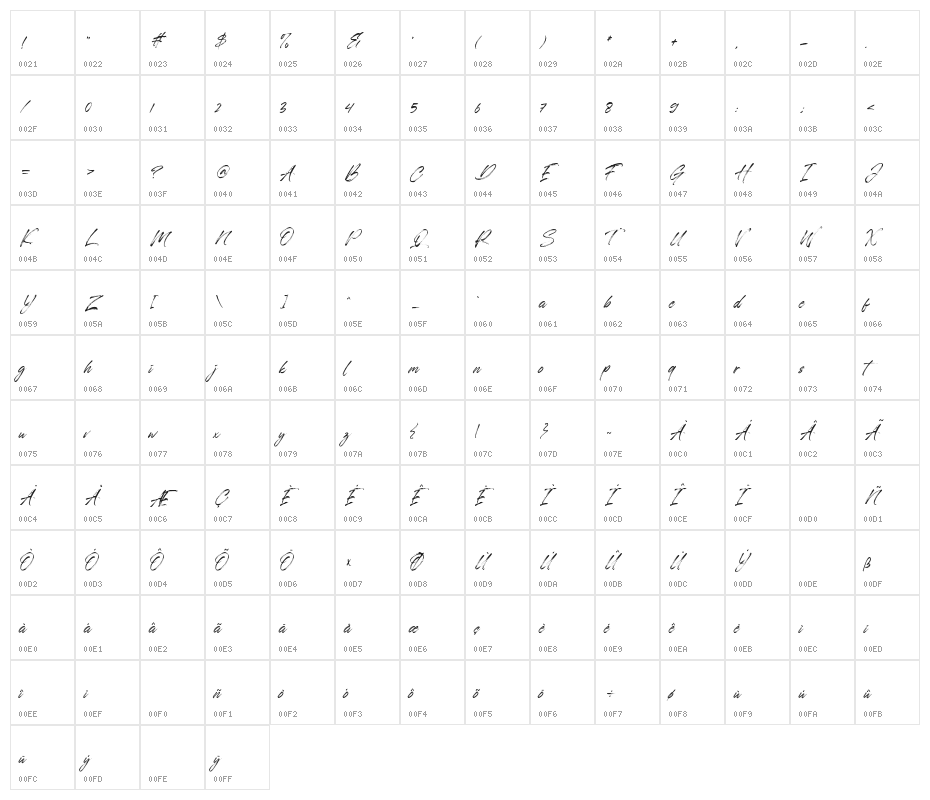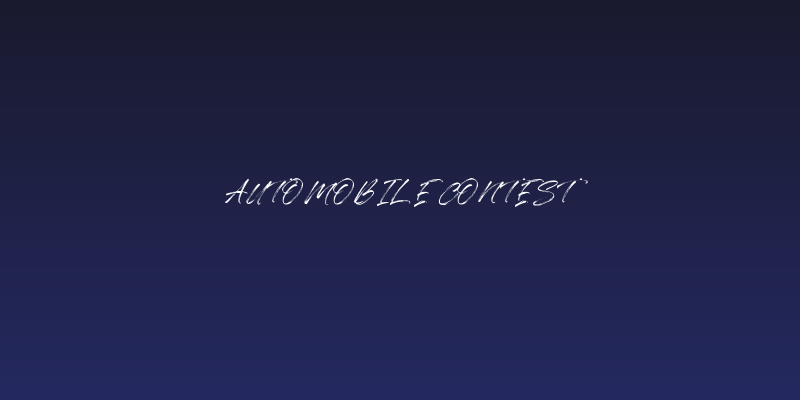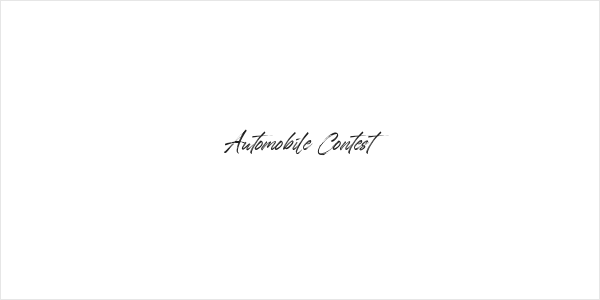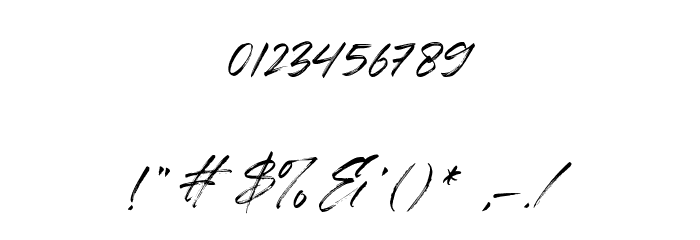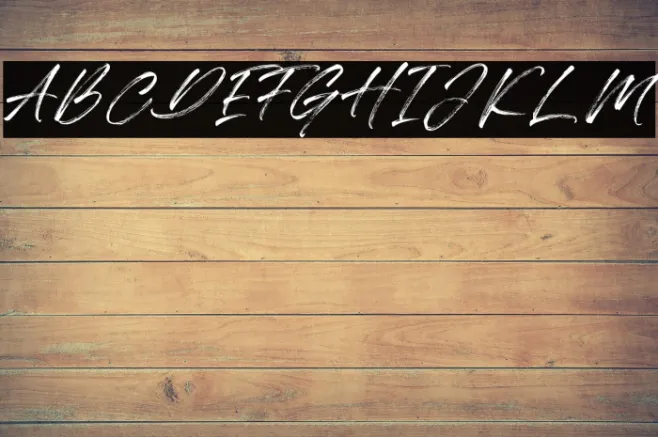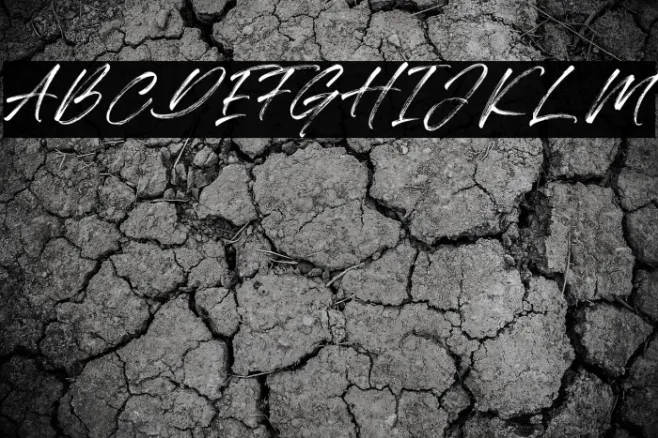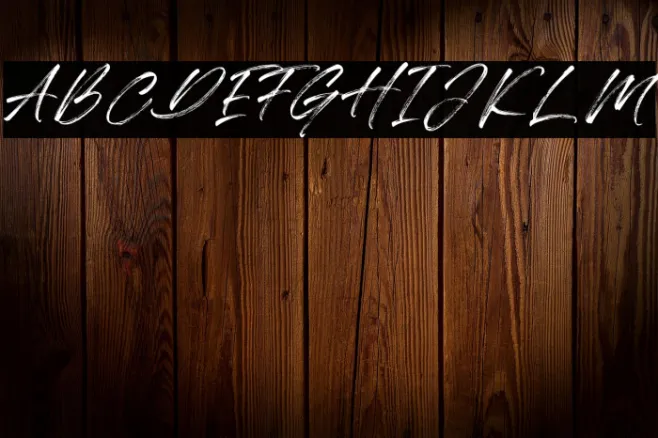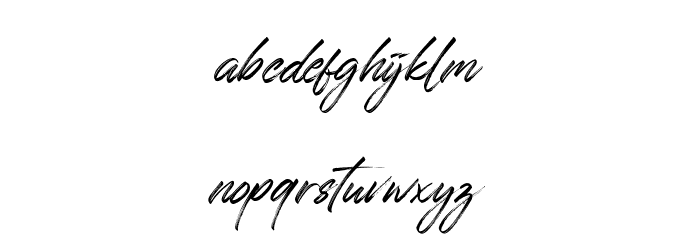
Automobile Contest Font
Automobile Contest Description
This font exudes an artistic and dynamic flair, characterized by its fluid, cursive strokes that mimic the elegance of handwritten script. The letters are slightly slanted, adding a sense of motion and grace. The uppercase letters are bold and prominent, while the lowercase letters maintain a consistent flow, enhancing readability. The numbers and special characters are crafted with the same attention to detail, ensuring a cohesive appearance throughout. The font's texture is slightly distressed, giving it a unique, vintage feel that adds character and depth. This font is perfect for projects that require a touch of sophistication and creativity.
| Proposed Projects | Ideal for wedding invitations, branding, logo design, and artistic projects that require a personal touch. |